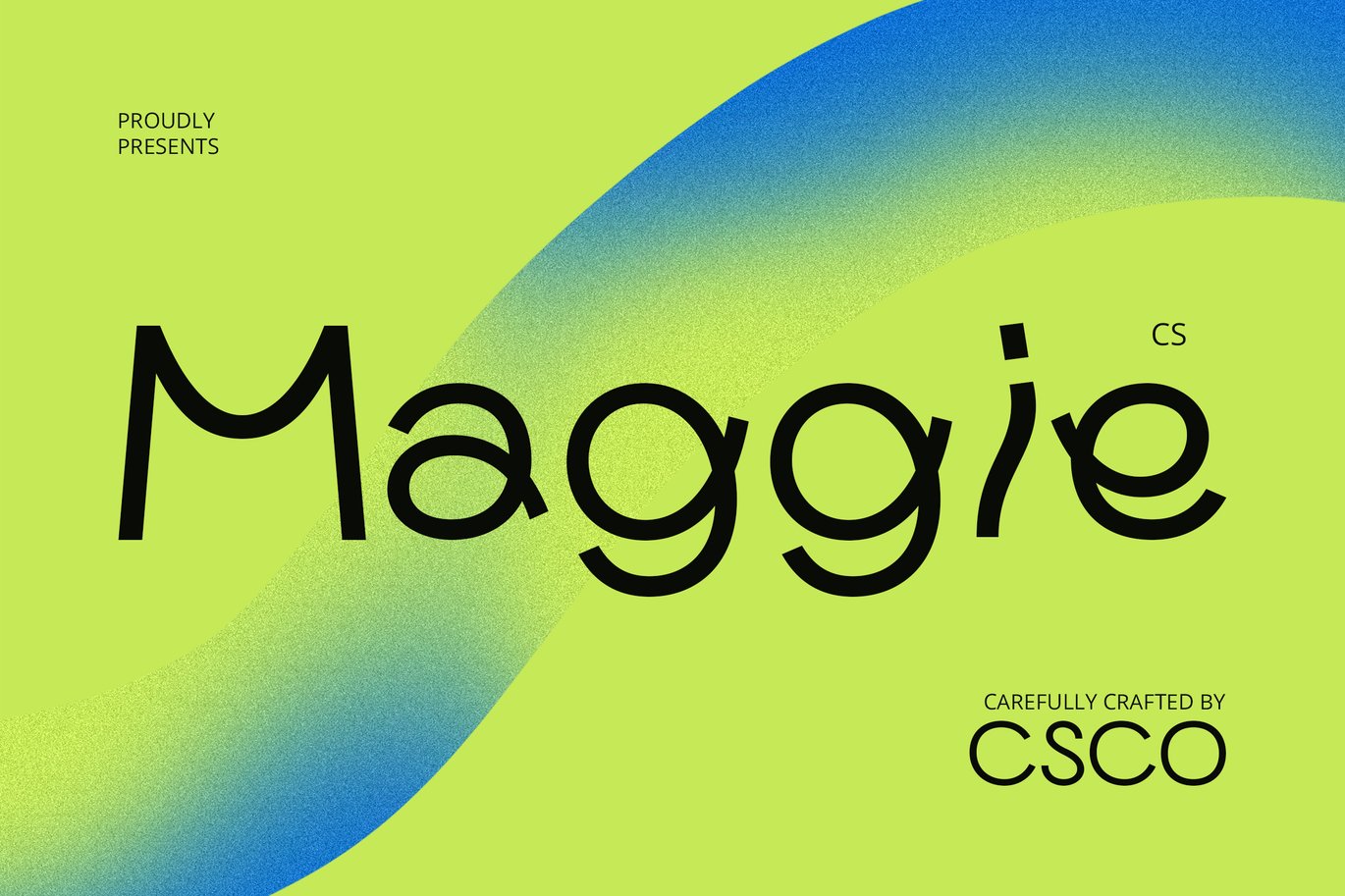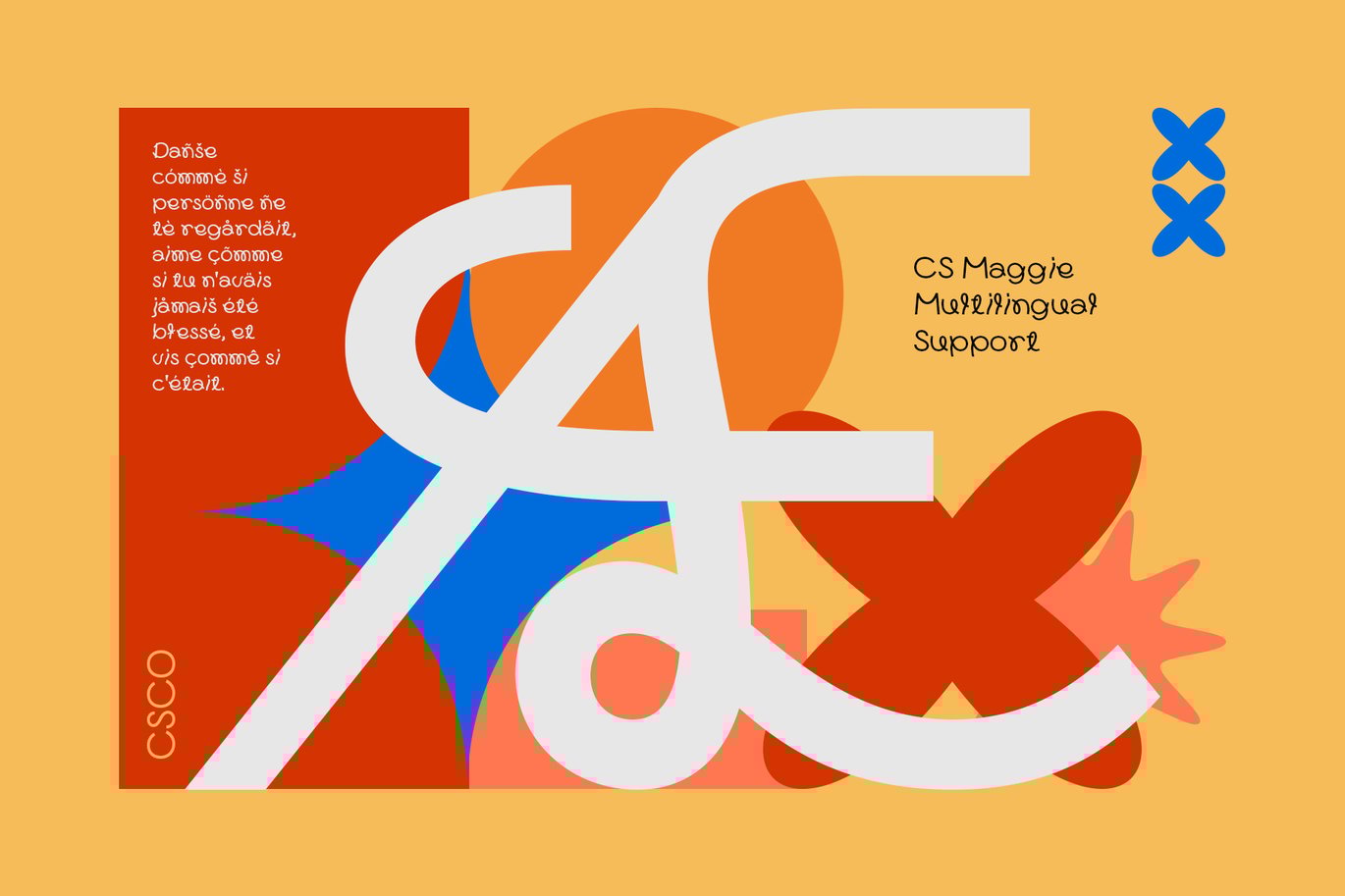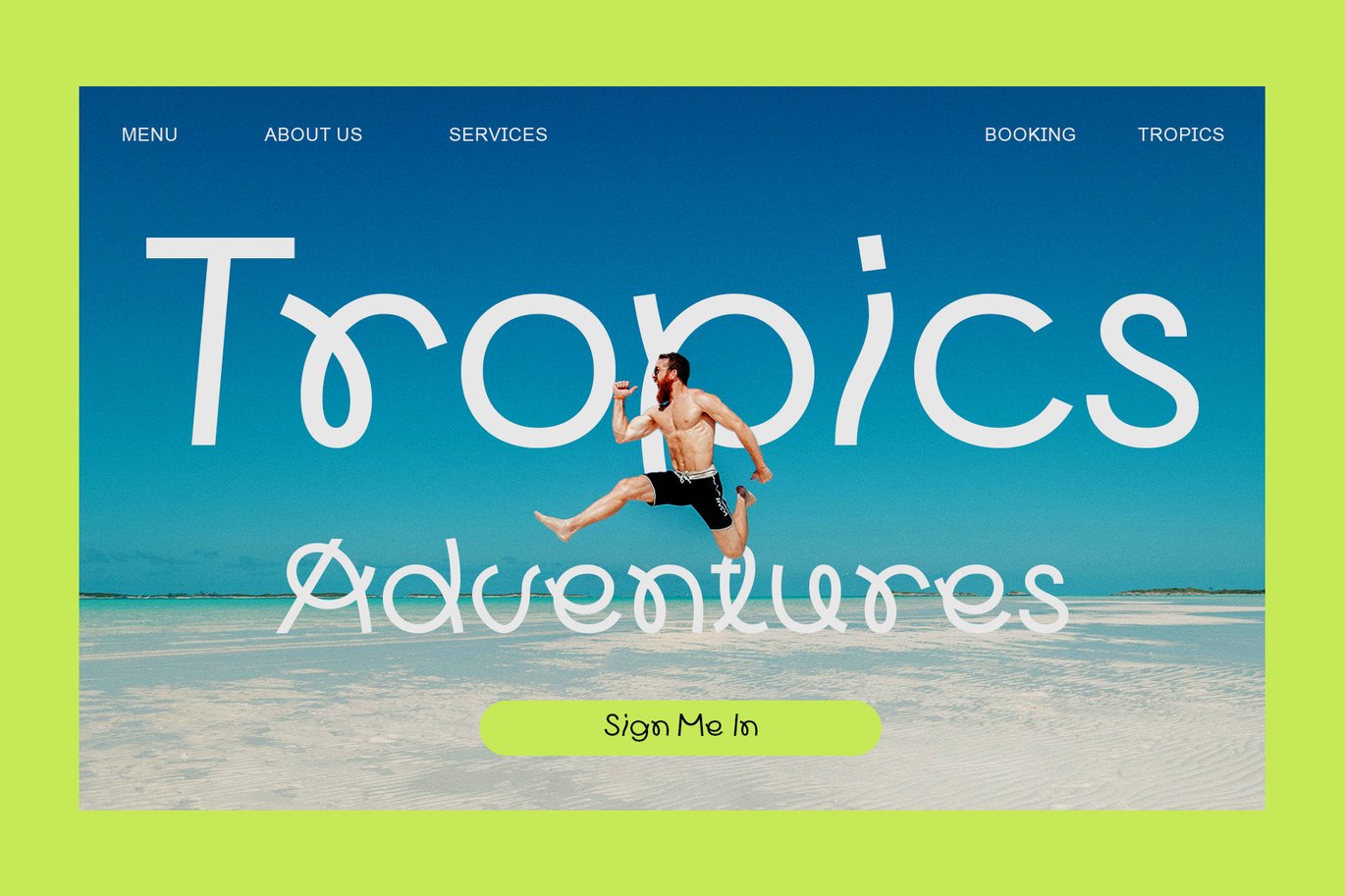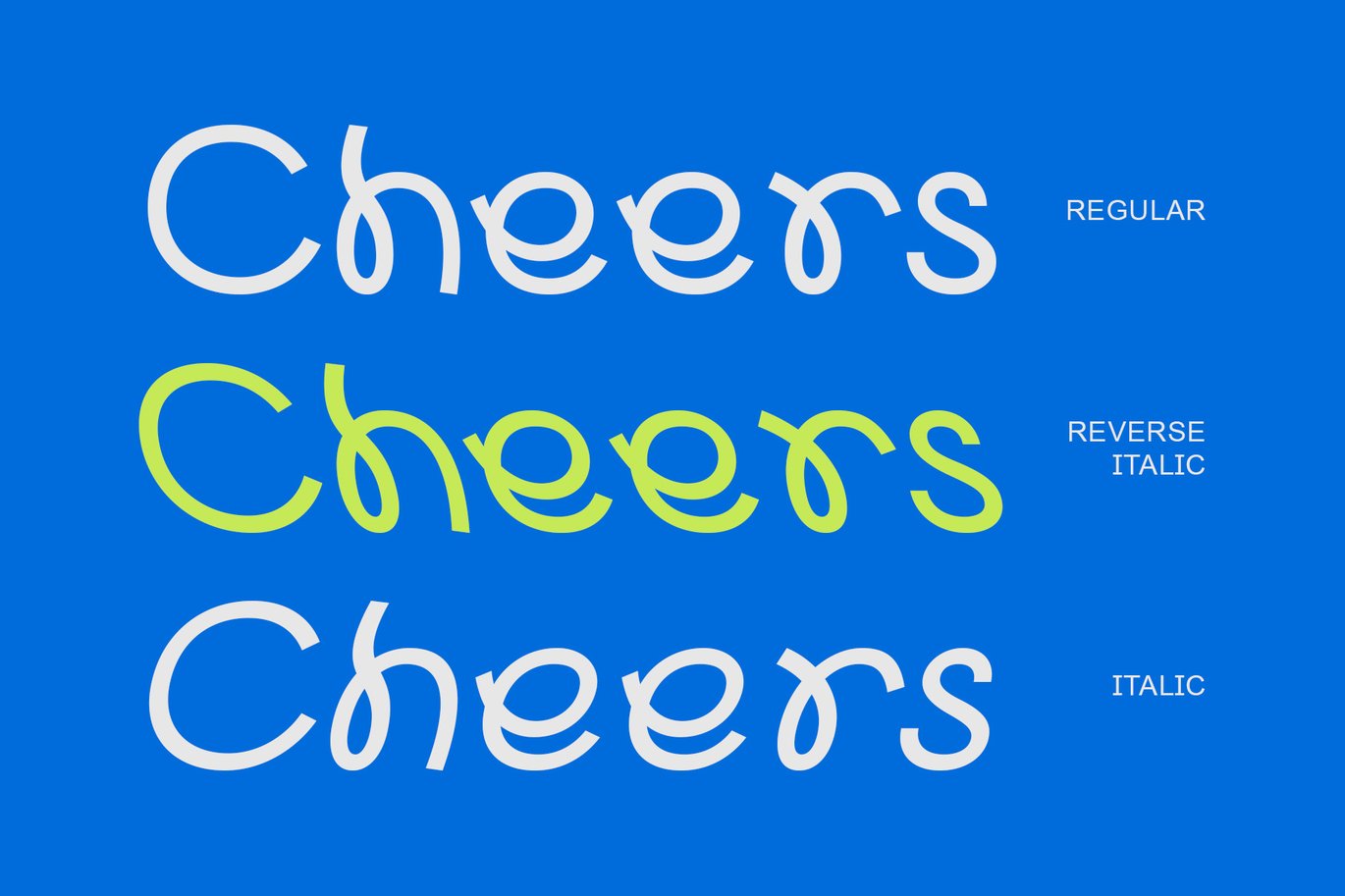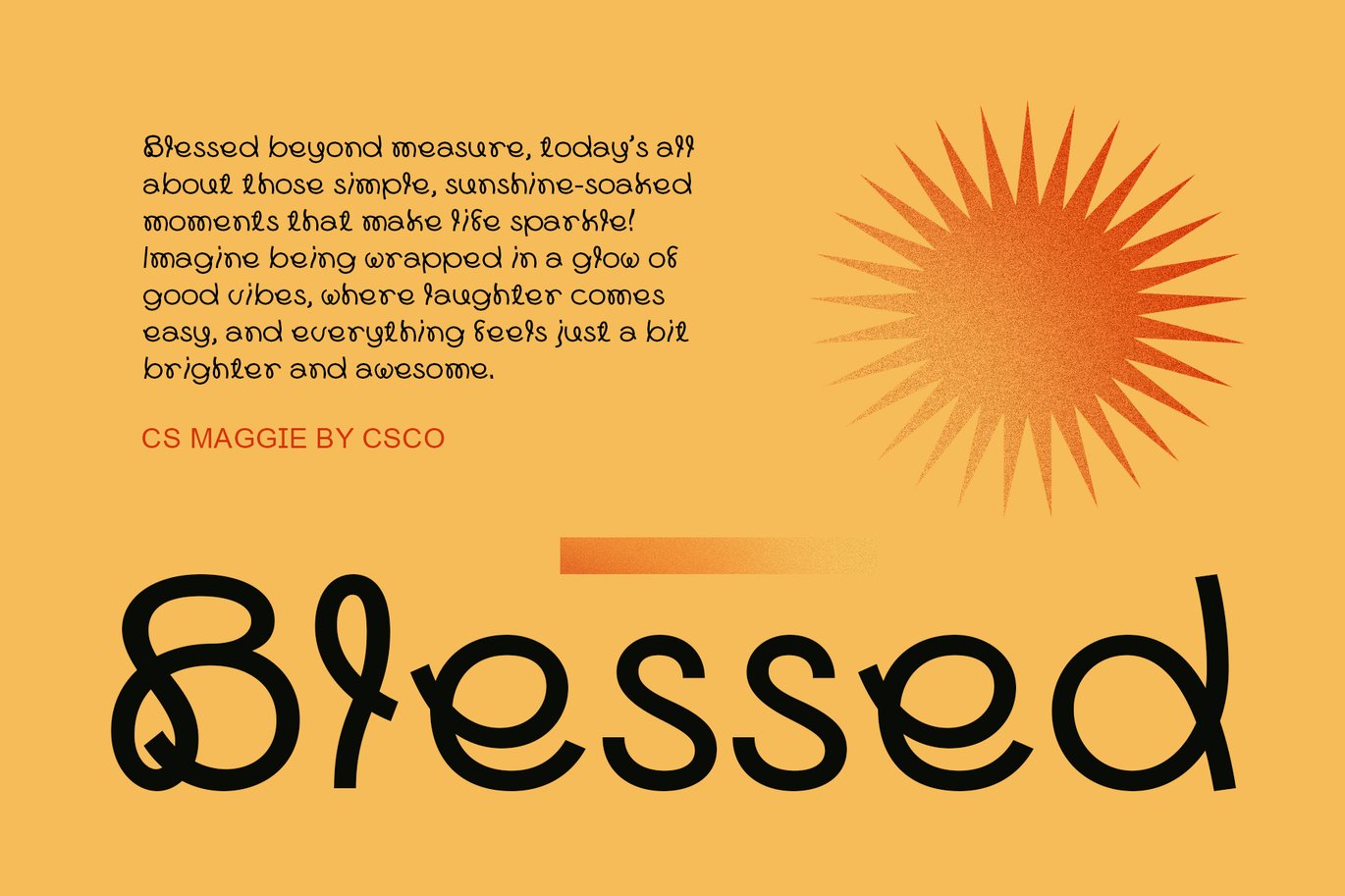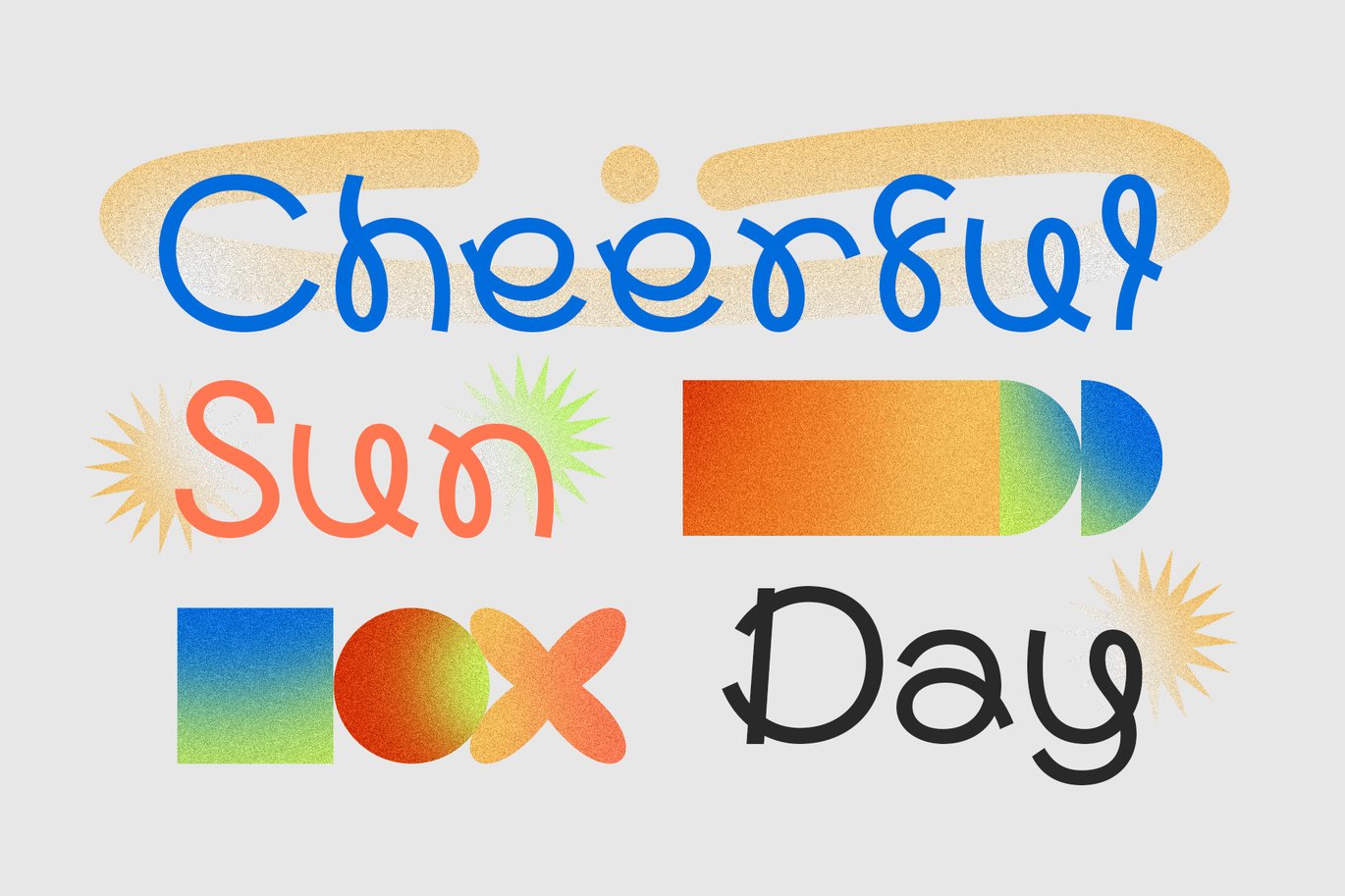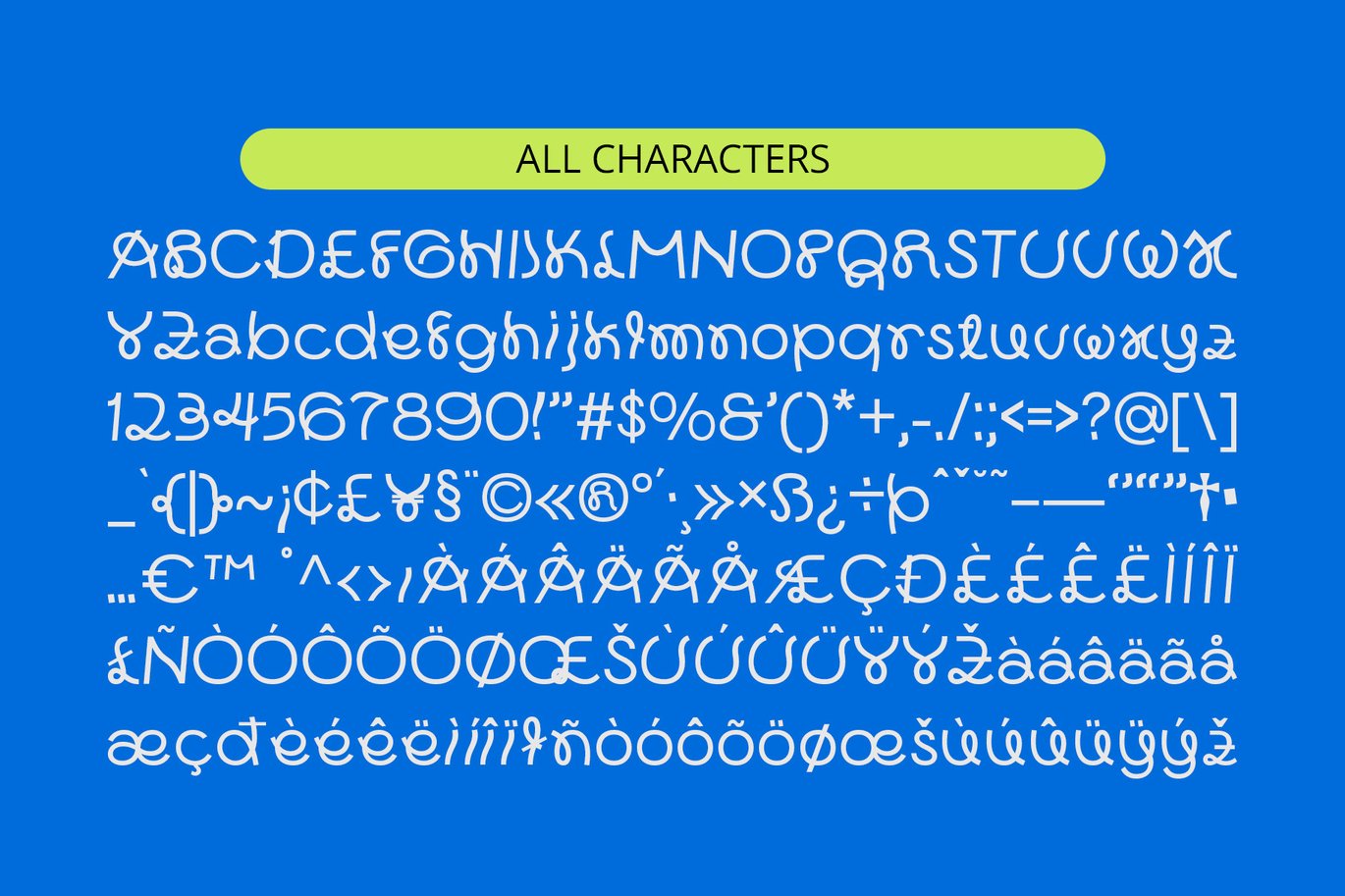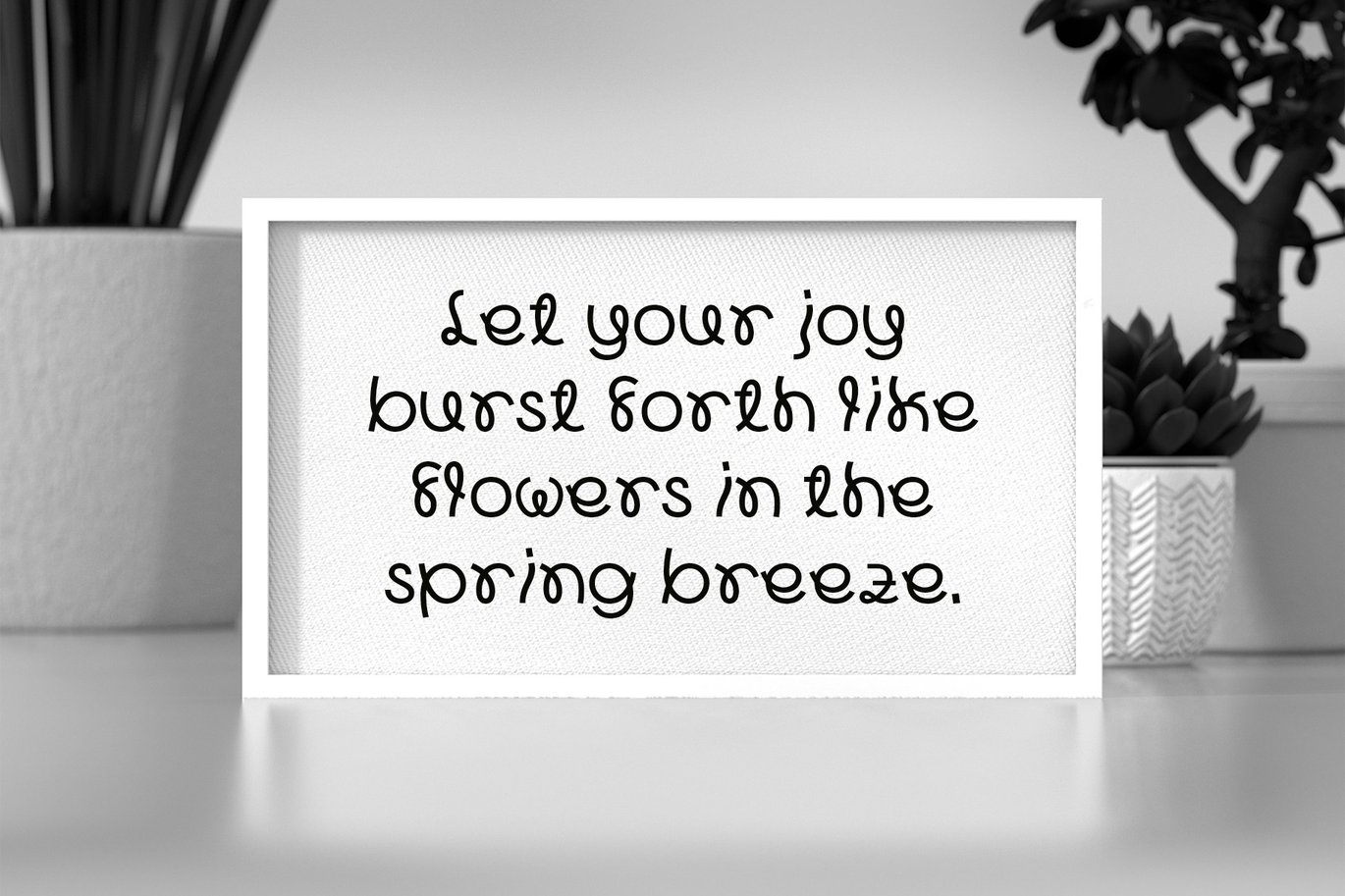
Maggie – Cute Font
CS Maggie – Cute Font: Infusing Joy and Creativity into Every Design
Charming Decorative Display Font with a Playful Personality
CS Maggie is a modern decorative display font crafted to bring warmth and playfulness to any project. Each character is designed with curved lines, rounded shapes, and carefully added ornaments that create a uniquely whimsical look. These fun, creative letterforms make CS Maggie a font that stands out in designs focused on cheerfulness, imagination, and youthful energy.
Distinctive Elements for a Fun and Engaging Style
The font’s one-of-a-kind details, from its smooth curves to its delightful flourishes, create an inviting, hand-drawn feel that captivates the viewer. This artistic touch makes CS Maggie feel friendly and approachable, ideal for projects that want to make a genuine, lighthearted impression. Its endearing style is perfect for logos, children’s branding, and product packaging, where a fun and vibrant design can truly shine.
An Ideal Choice for Youthful and Cheerful Themes
Designed with a young and optimistic spirit, CS Maggie is a font that exudes happiness. Its rounded shapes and decorative elements add a sense of spontaneity and fun, making it especially suited for event posters, social media graphics, and children’s book covers. The font’s lively, upbeat nature ensures it catches the eye, drawing viewers in and evoking a sense of delight and curiosity.